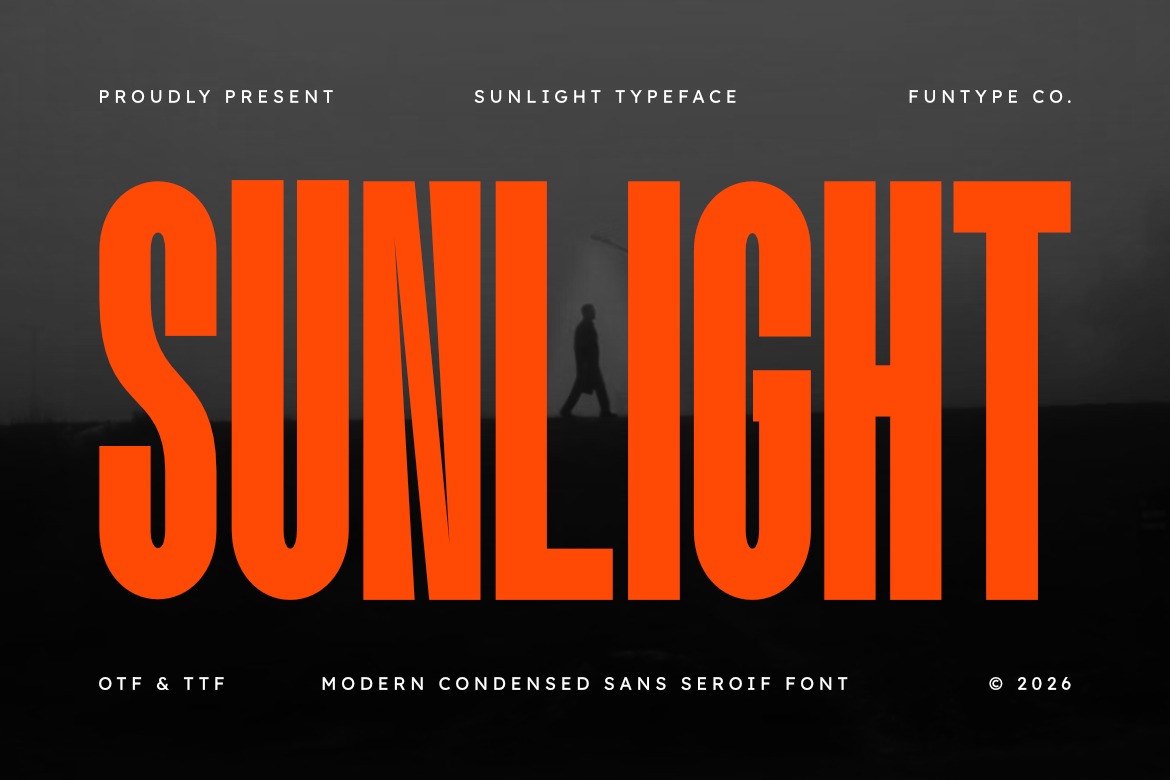
Sunlight – Modern Condensed Sans Serif Font
Sunlight – Modern Condensed Sans Serif Font is a premium-quality font developed to enhance your work with a polished, modern, and visually elevated look. Sunlight is a sophisticated and powerful modern condensed sans serif font, thoughtfully designed to capture the essence of vertical impact and contemporary storytelling. With its tall, ultra-compressed structure and clean geometric lines, Sunlight offers a professional aesthetic that brings a touch of commanding presence to any creative project.
This font is the ideal choice for designers looking to add a professional yet high-impact touch to their work. Whether you are crafting a striking cinematic poster, a sleek technology brand identity, or bold editorial layouts, Sunlight provides a seamless blend of modern edge and digital authority.